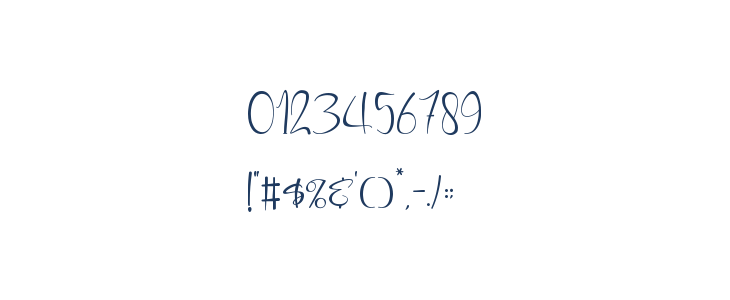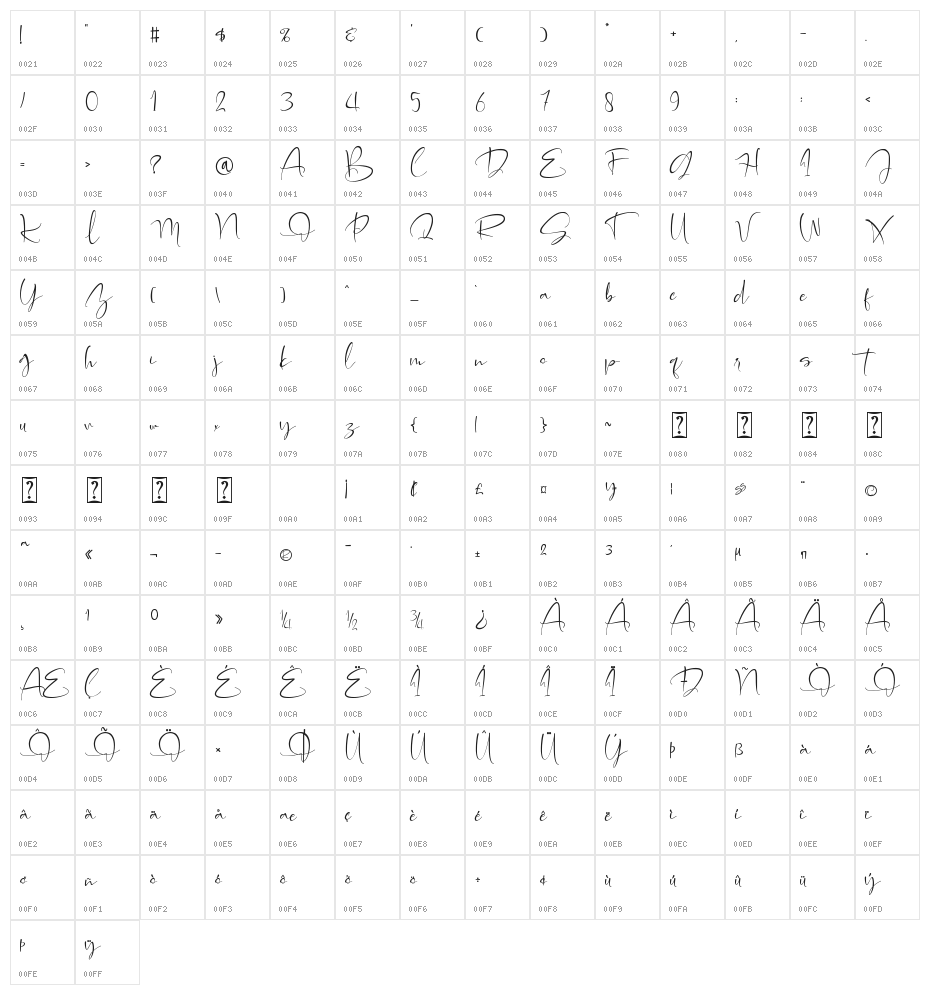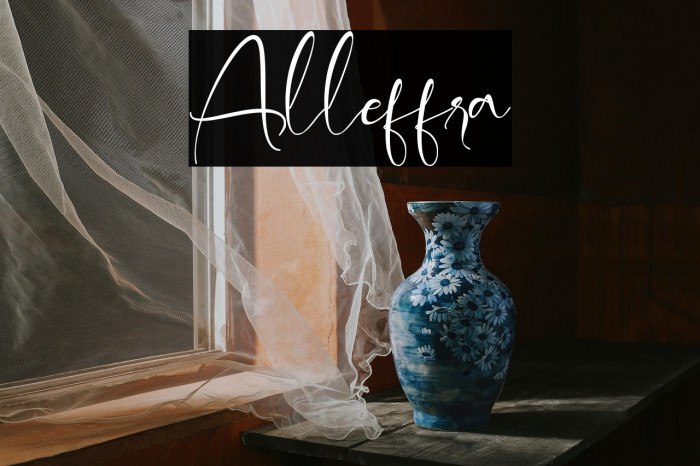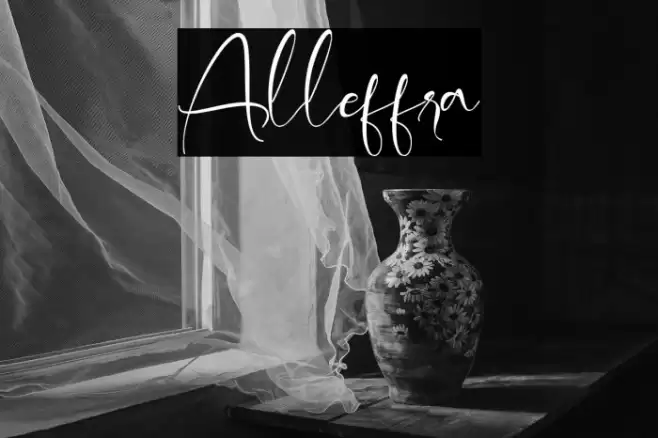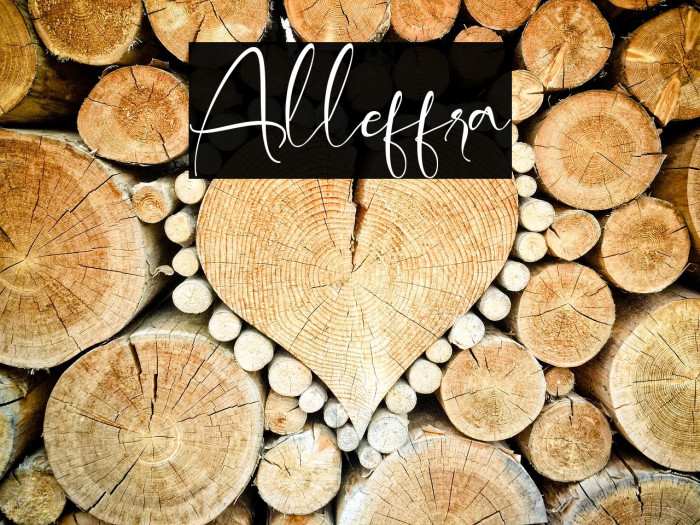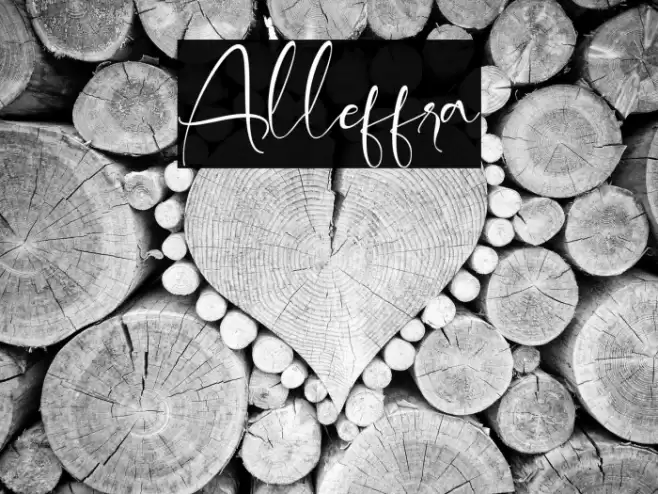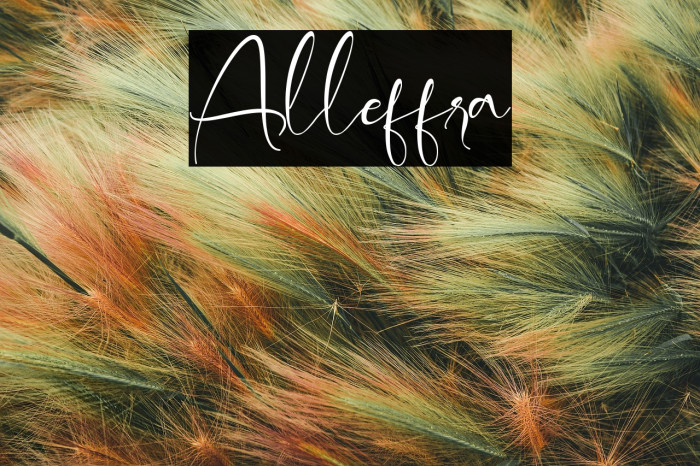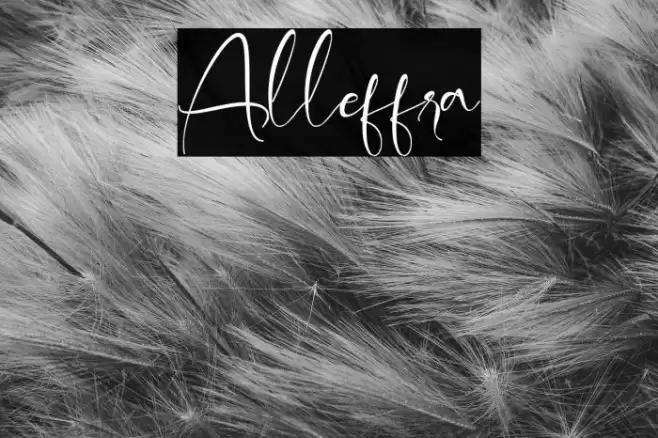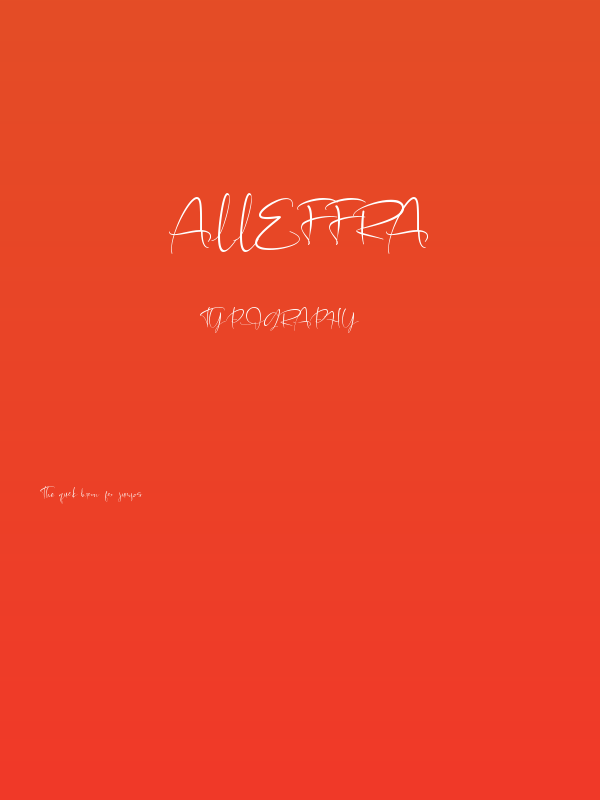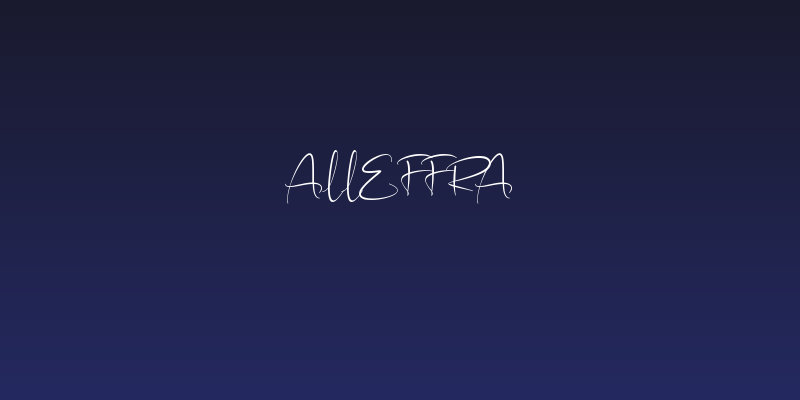
Alleffra Font
Alleffra Description
This font features an elegant, flowing script style that mimics the fluidity of natural handwriting. The uppercase letters are characterized by sweeping curves and loops, giving them a sense of movement and grace. The lowercase letters maintain a consistent style, with elongated ascenders and descenders that enhance the font's overall elegance. The numerals are distinct and easy to read, while the special characters blend seamlessly with the alphabet, maintaining the font's cohesive appearance. This font's artistic flair makes it suitable for creative and expressive design projects.